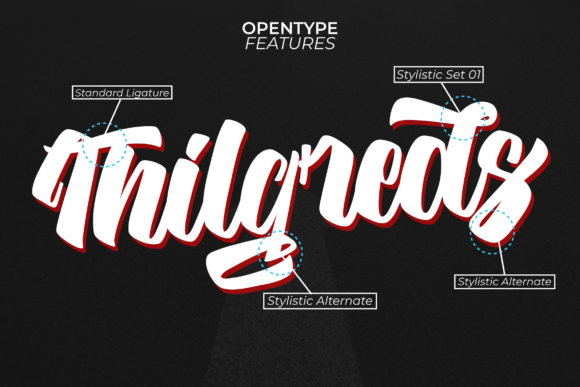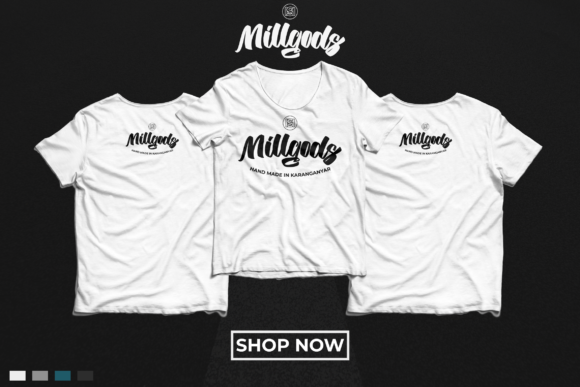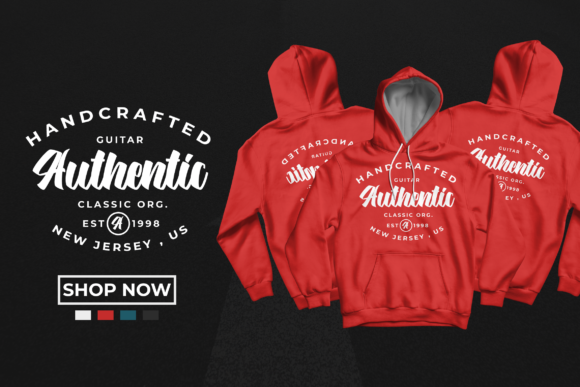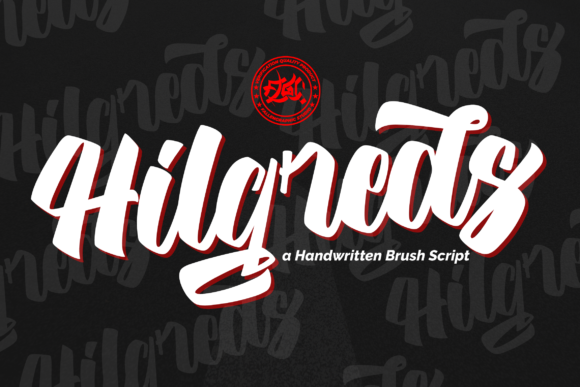
Introduction to Hilgreds Font
Hilgreds is a gorgeous script font that will turn any design project into a raw work of art.
👤 Author Fallengraphic
This unfiltered script will add a personal touch to any creative idea .
Key Features of Hilgreds Font
Why Choose Hilgreds Font?
Hilgreds Font offers exceptional quality and versatility, making it a valuable addition to your design toolkit. Whether you’re creating for personal projects or commercial use, Hilgreds Font delivers professional results.